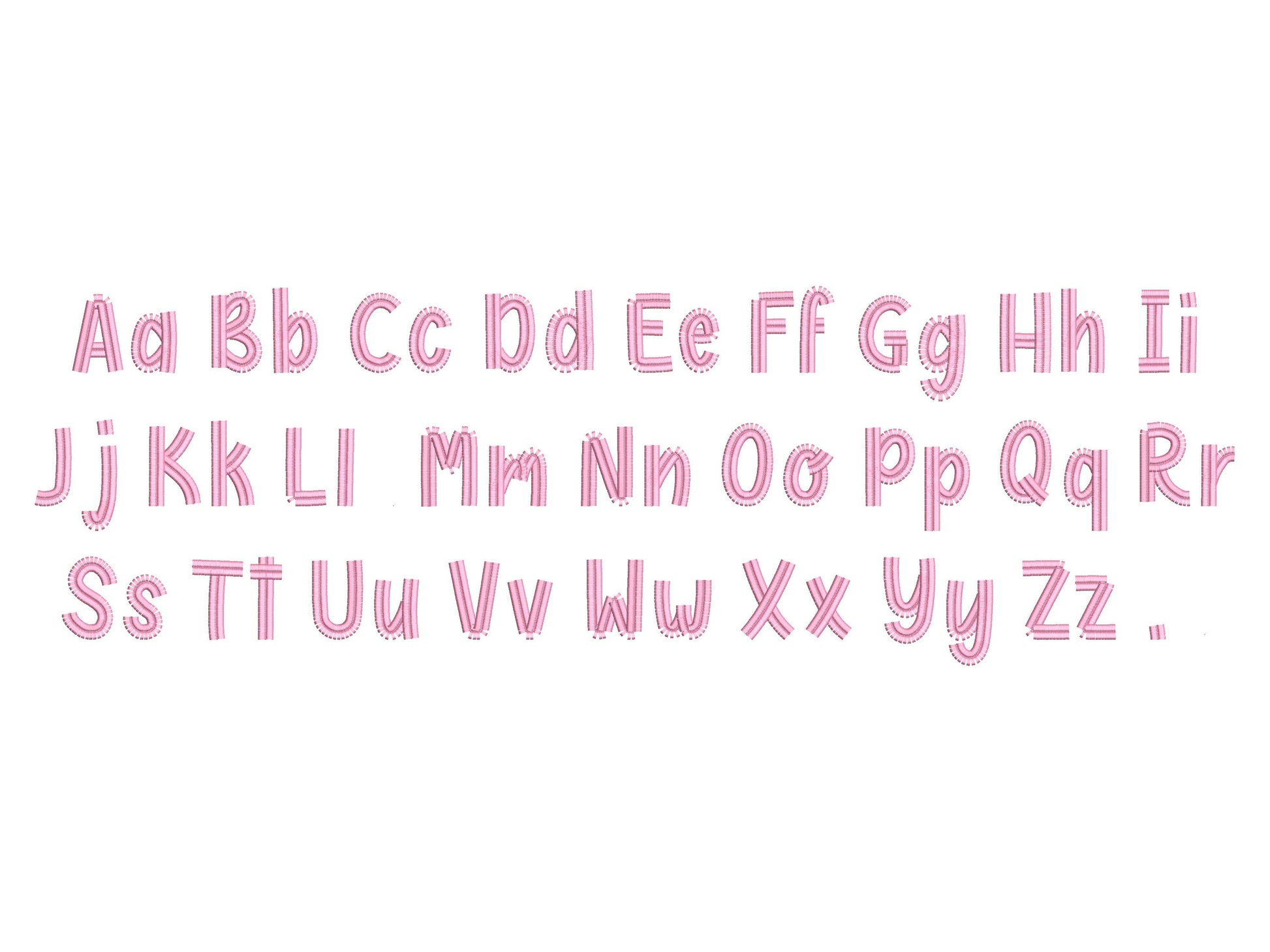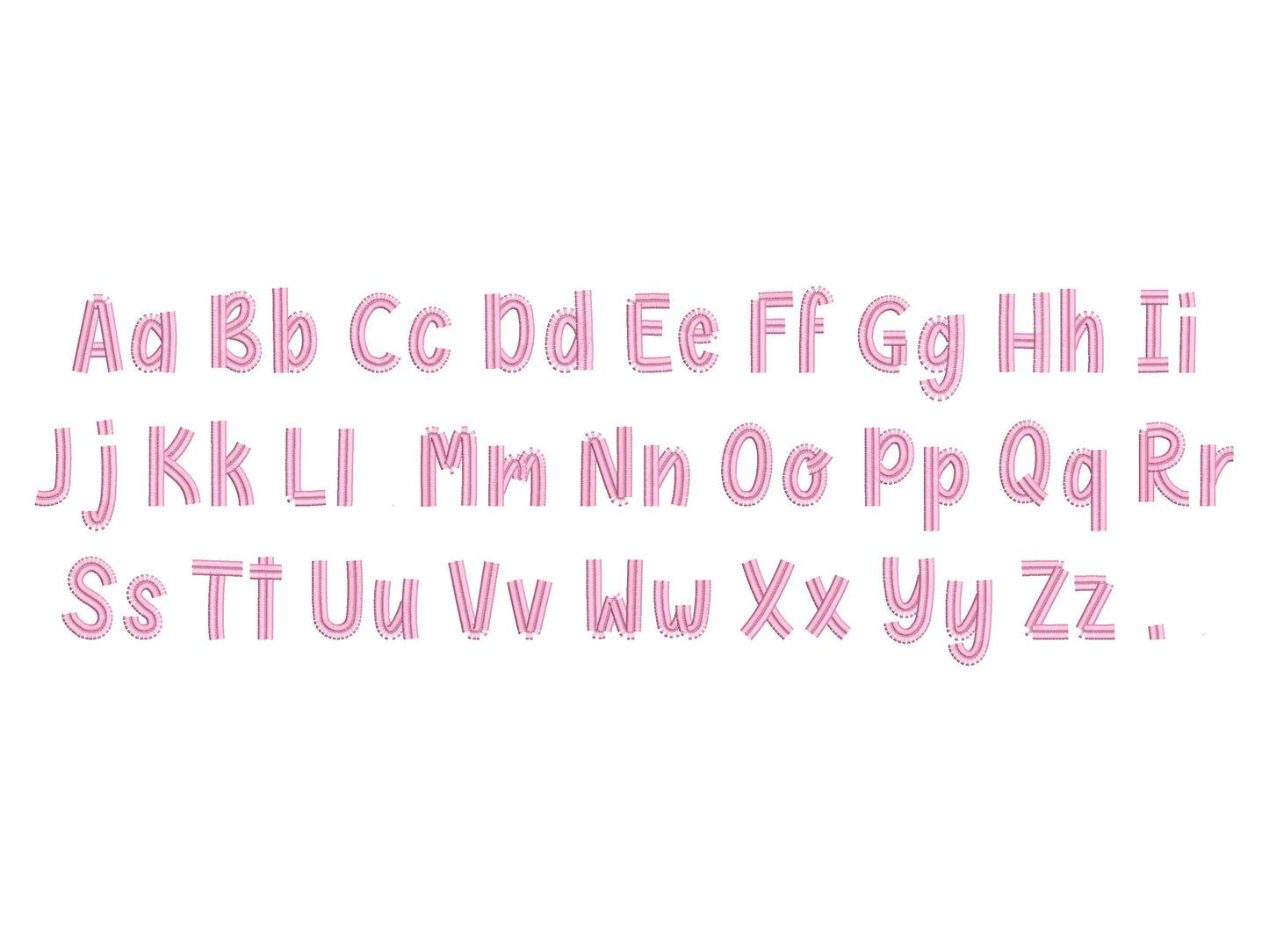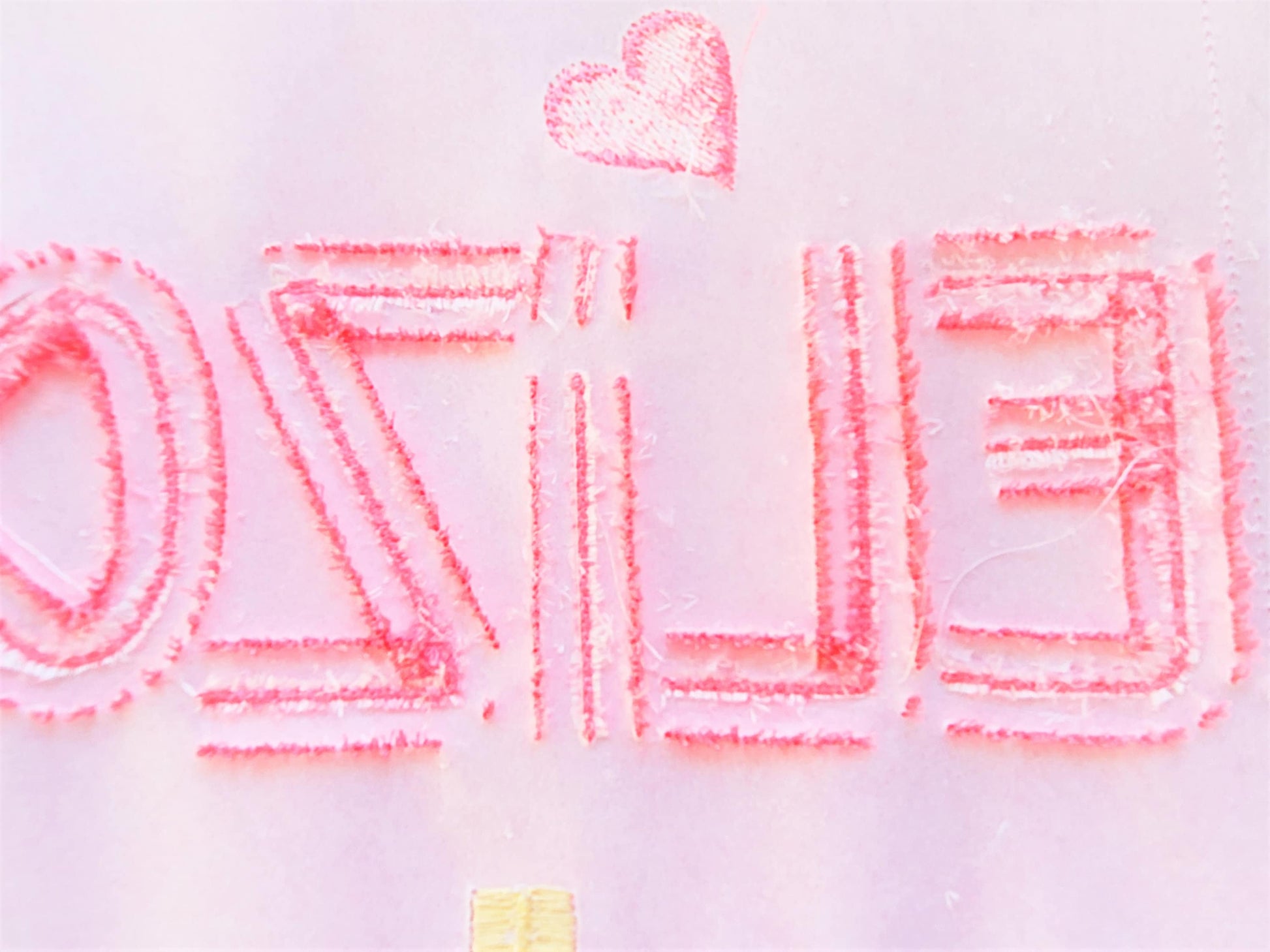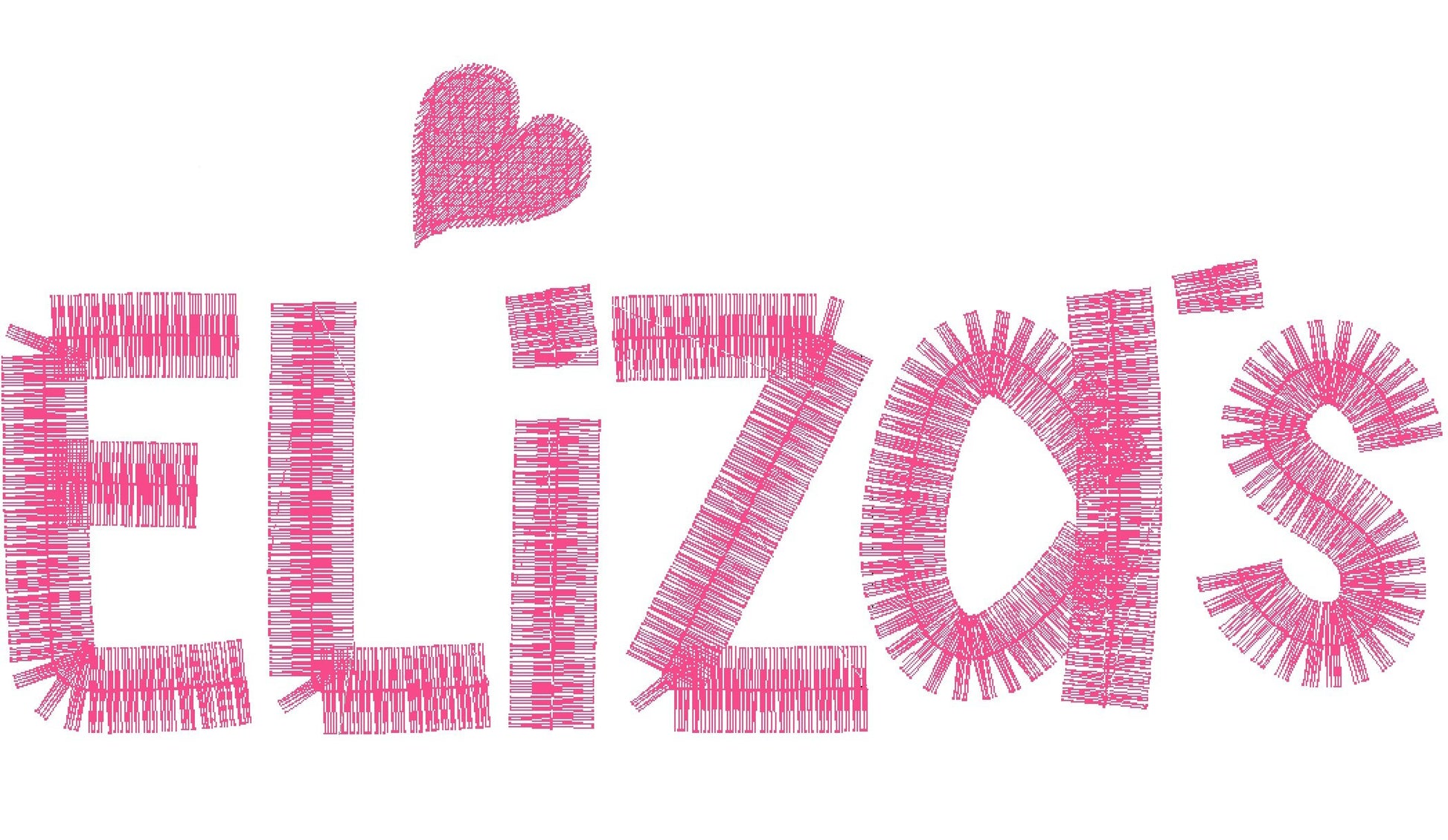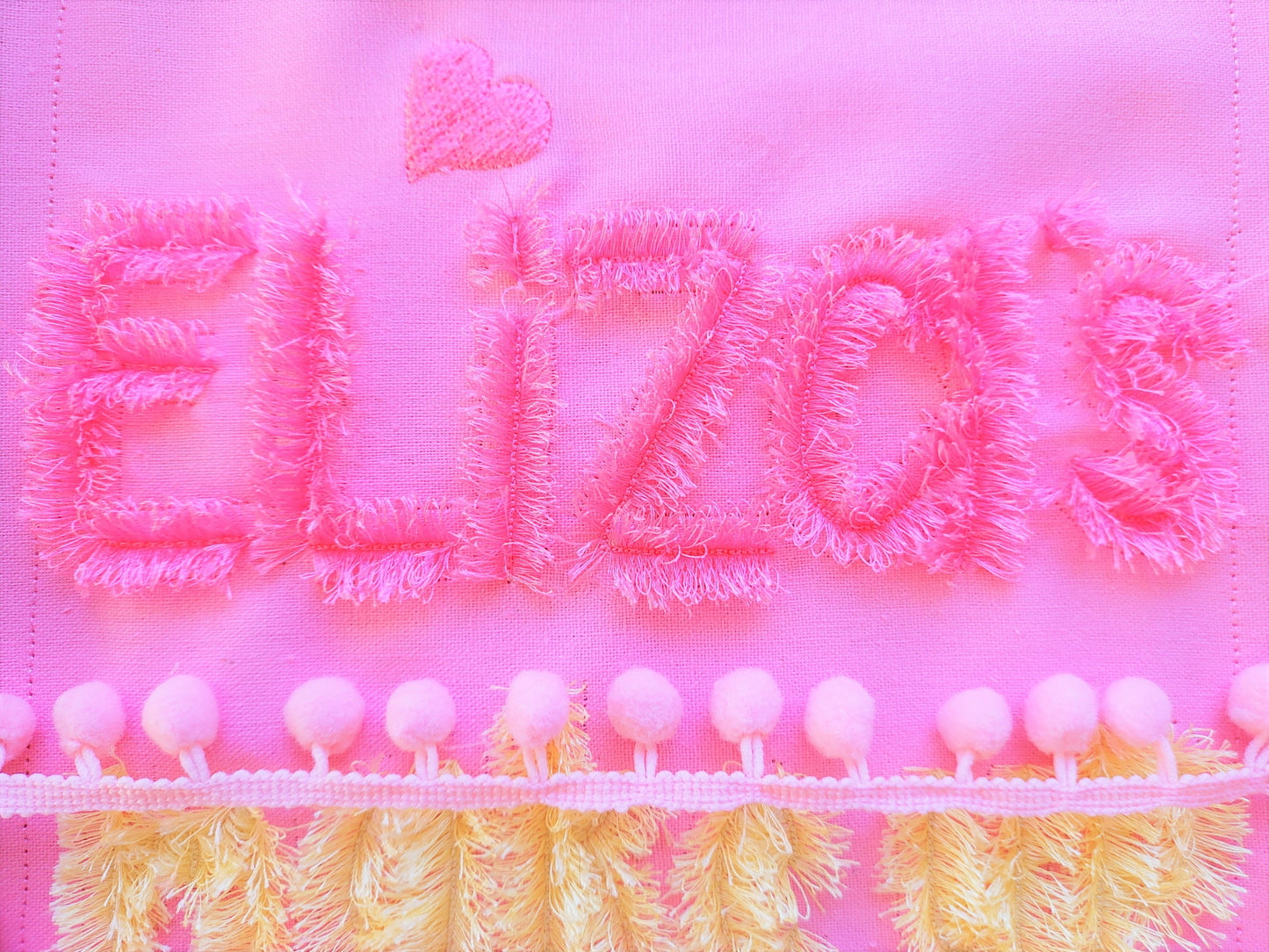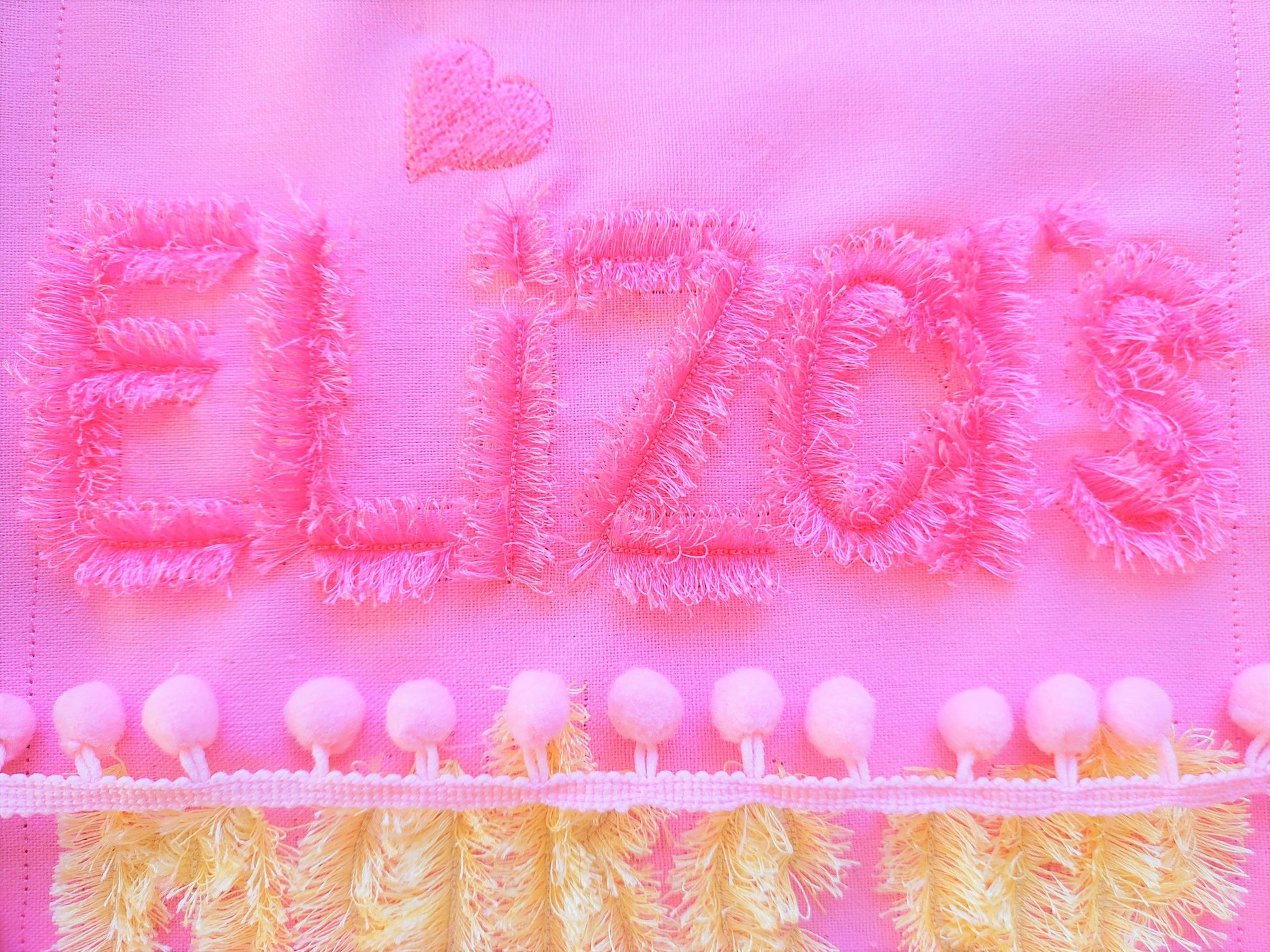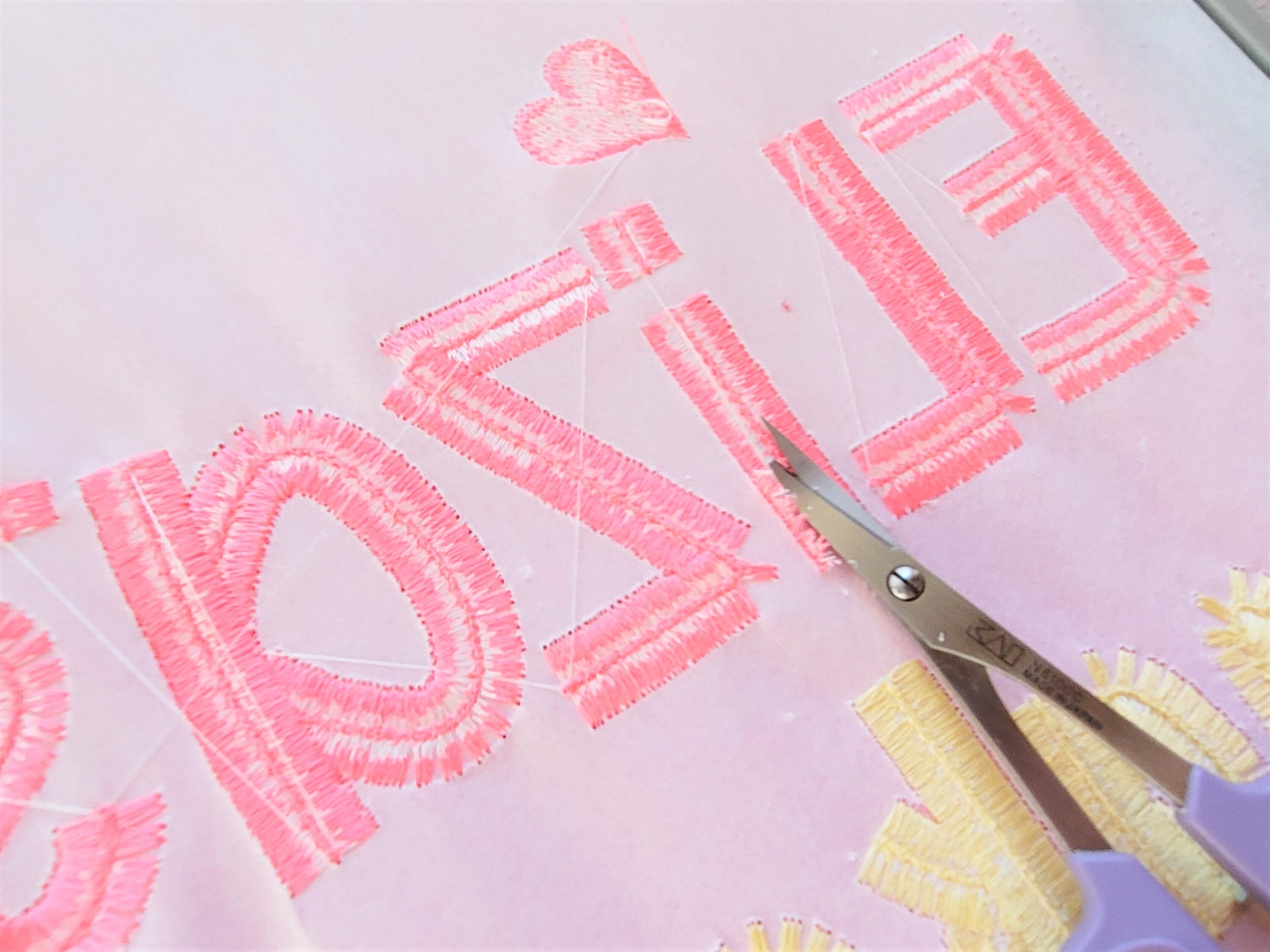
Or click to open the linkA cute fluffy fringed font for girly, boho names and personalized gifts on bags, pillows and shirts.
Every letter can be fringed for a soft fluffy look, and it is safe to machine wash. Uppercase and lowercase letters and a period in five sizes: 1.8, 2.3, 2.8, 3.5 and 4 inches.